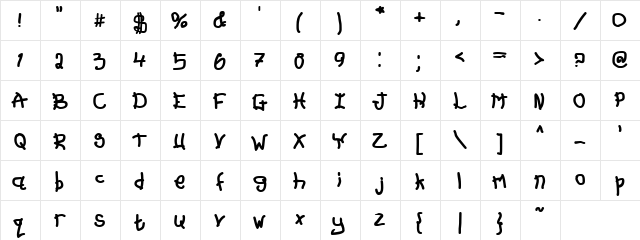
Gilbeys green Regular
Design Context for Gilbeys green Typeface
Gilbeys green takes a measured approach to typography — its balanced proportions and neutral character make it a reliable workhorse for both digital and print work.